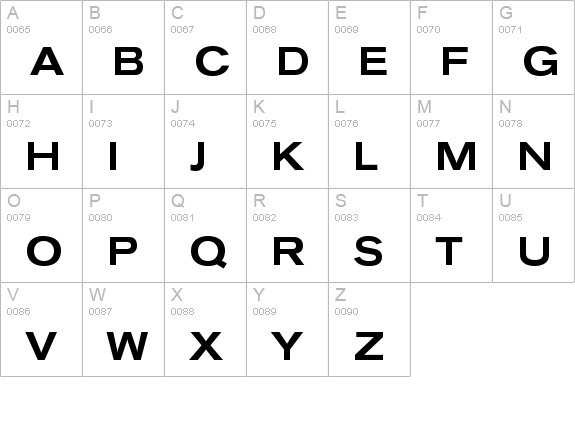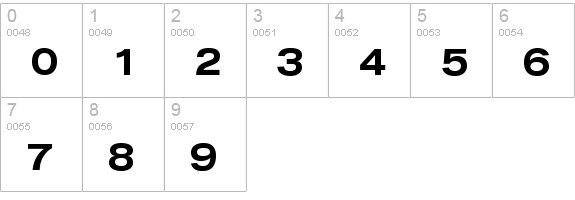
Berthold Akzidenz Grotesk BE Medium Extended Font Details
Berthold Akzidenz Grotesk BE Medium Extended is a balanced, medium-weight, extended-width variant in the Berthold typeface family \xE2\x80\x94 well suited to sub-headlines, navigation, and balanced editorial work.
Berthold Akzidenz Grotesk BE Medium Extended is a versatile and modern typeface that exudes a sense of sophistication and style. With its clean lines and sleek design, this font is perfect for a wide range of design projects, from branding to advertising to editorial layouts. The medium weight and extended width of this font make it ideal for creating impactful headlines and titles that demand attention. One of the standout features of Berthold Akzidenz Grotesk BE Medium Extended is its timeless appeal, making it a classic choice for designers looking to achieve a refined and contemporary look. The font's legibility and readability also make it a practical choice for body text and longer passages of copy. And the best part? Berthold Akzidenz Grotesk BE Medium Extended is available for free download at FontsMarket.com. So you can add this stylish and versatile font to your design arsenal without breaking the bank. Whether you're working on a print project, a website design, or anything in between, Berthold Akzidenz Grotesk BE Medium Extended is sure to elevate your work with its timeless elegance and modern flair.